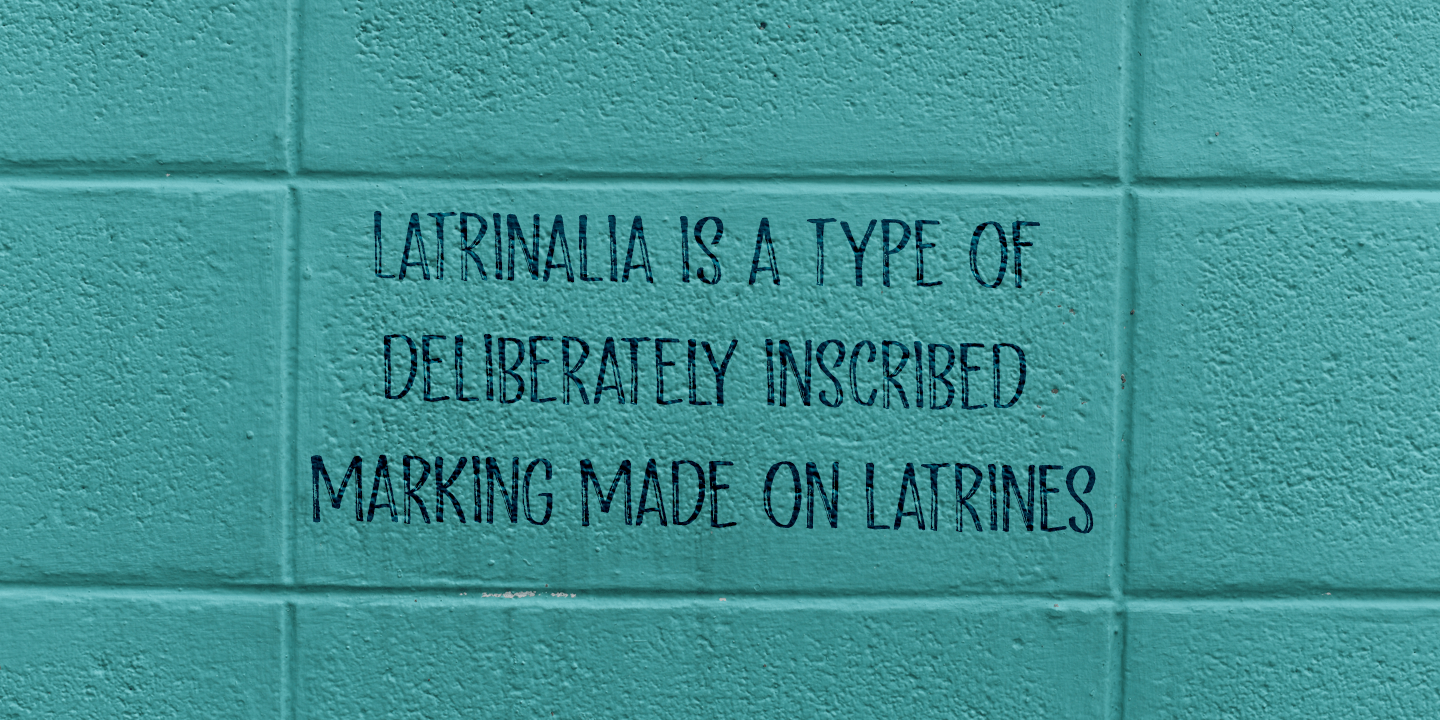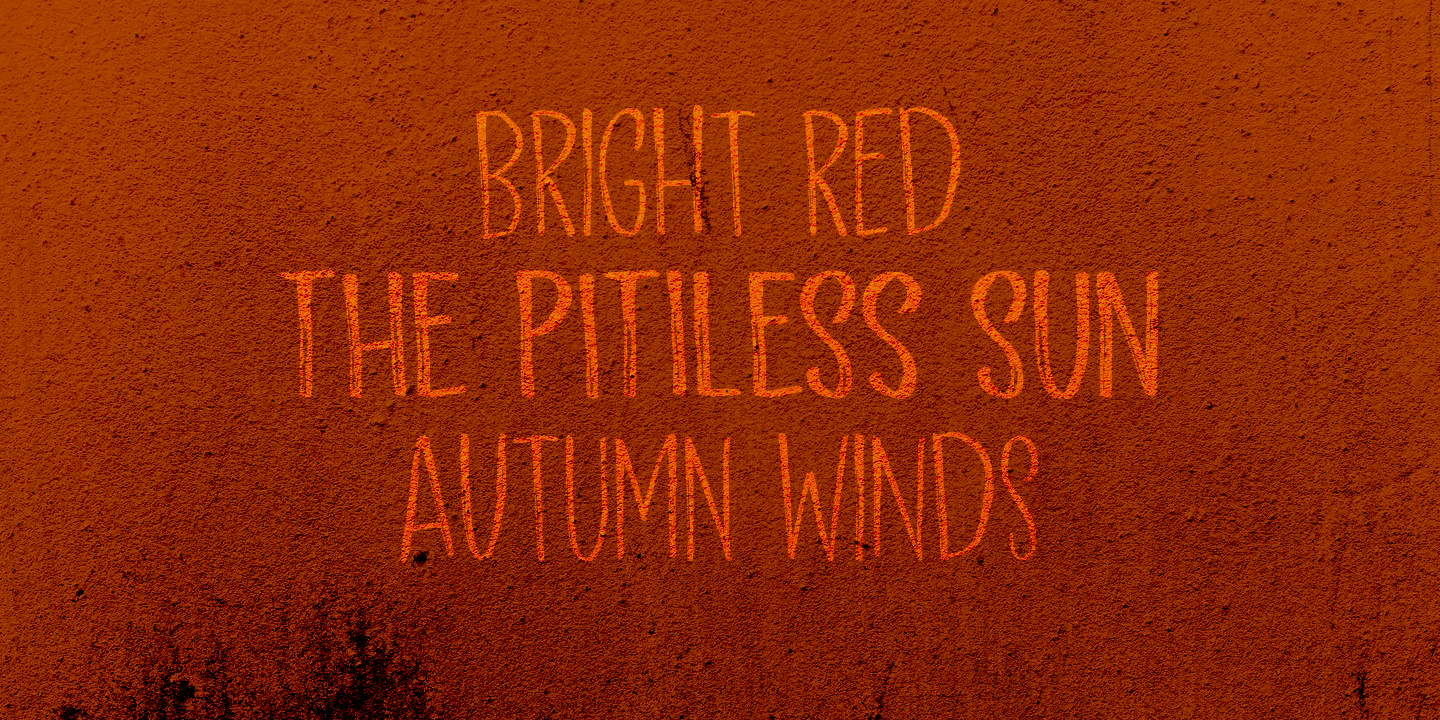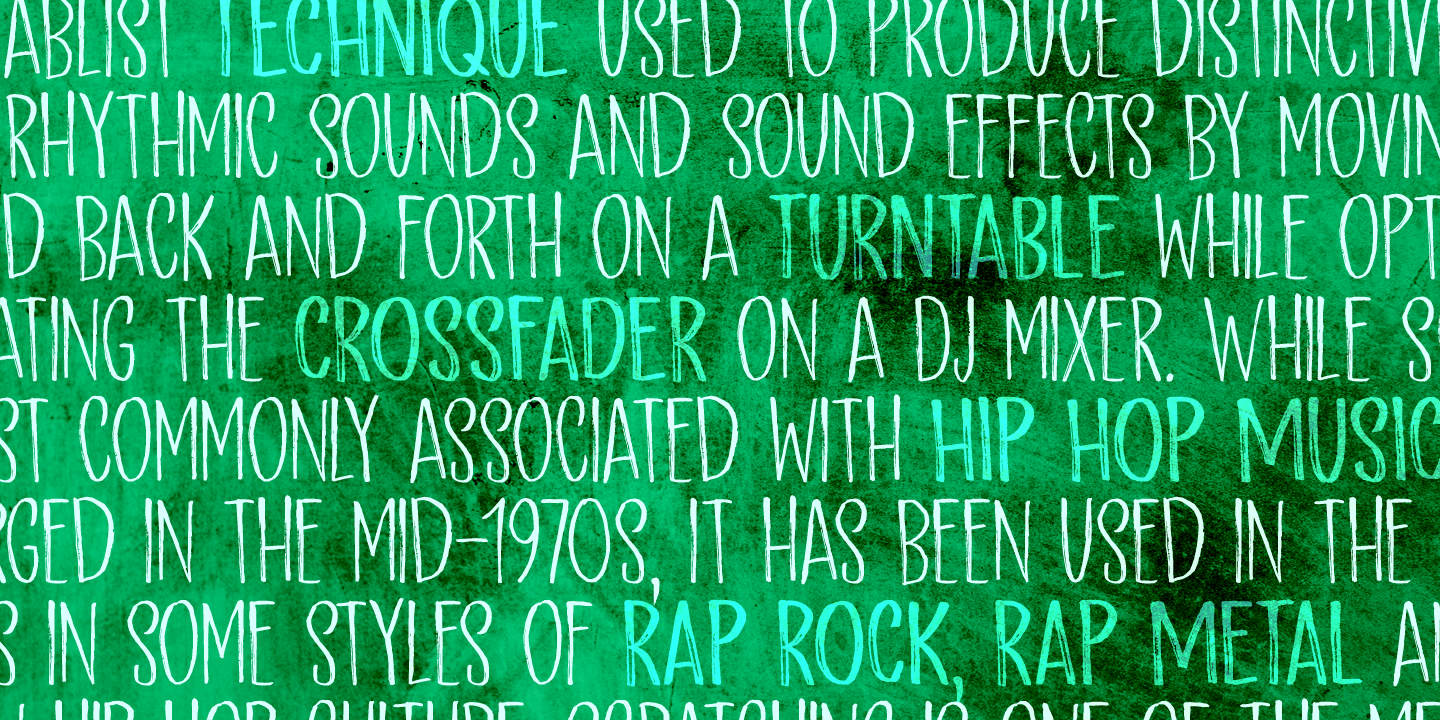
About Scratch Up
Scratch up started out by testing a brush pen I bought. I penned down two alphabets: one by pressing hard on the pen and one without pressure. The result is Scratch Up: a pair of roughish tall & thin fonts. Scratch up comes with all the diacritics you…